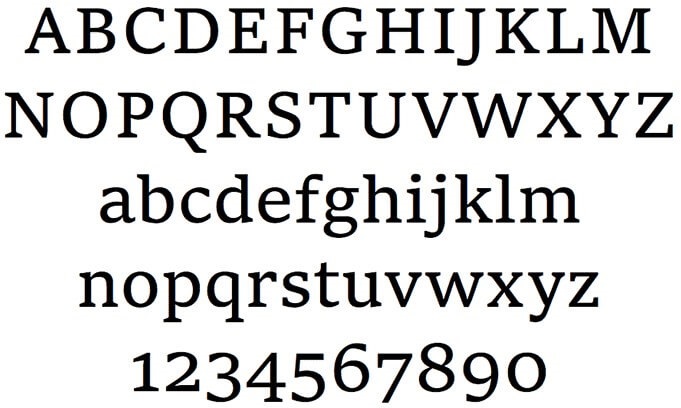
Sitka Brush Font
The Sitka Brush Font is a typeface inspired by art deco style, detective memories, and antique headlines and ads, and looks ideally suited to a film-poster title.
However, one’s little serifs aren’t detracting from this nevertheless being a thoroughly modern-day and current font. The significant color background is something to think about too.
Style Of The Sitka Brush Font Free